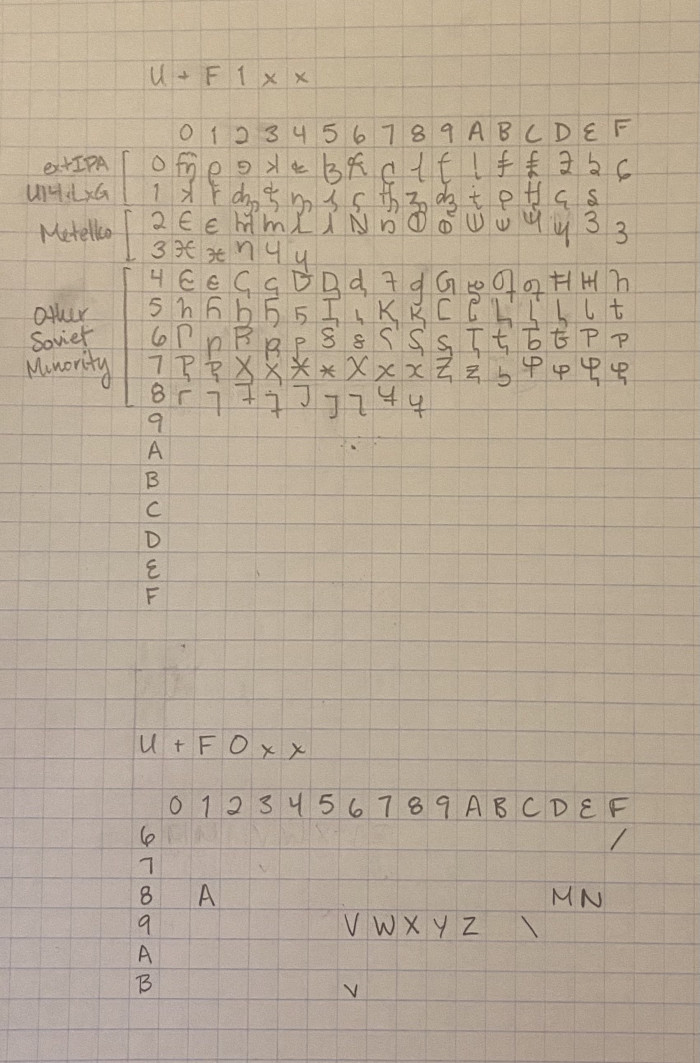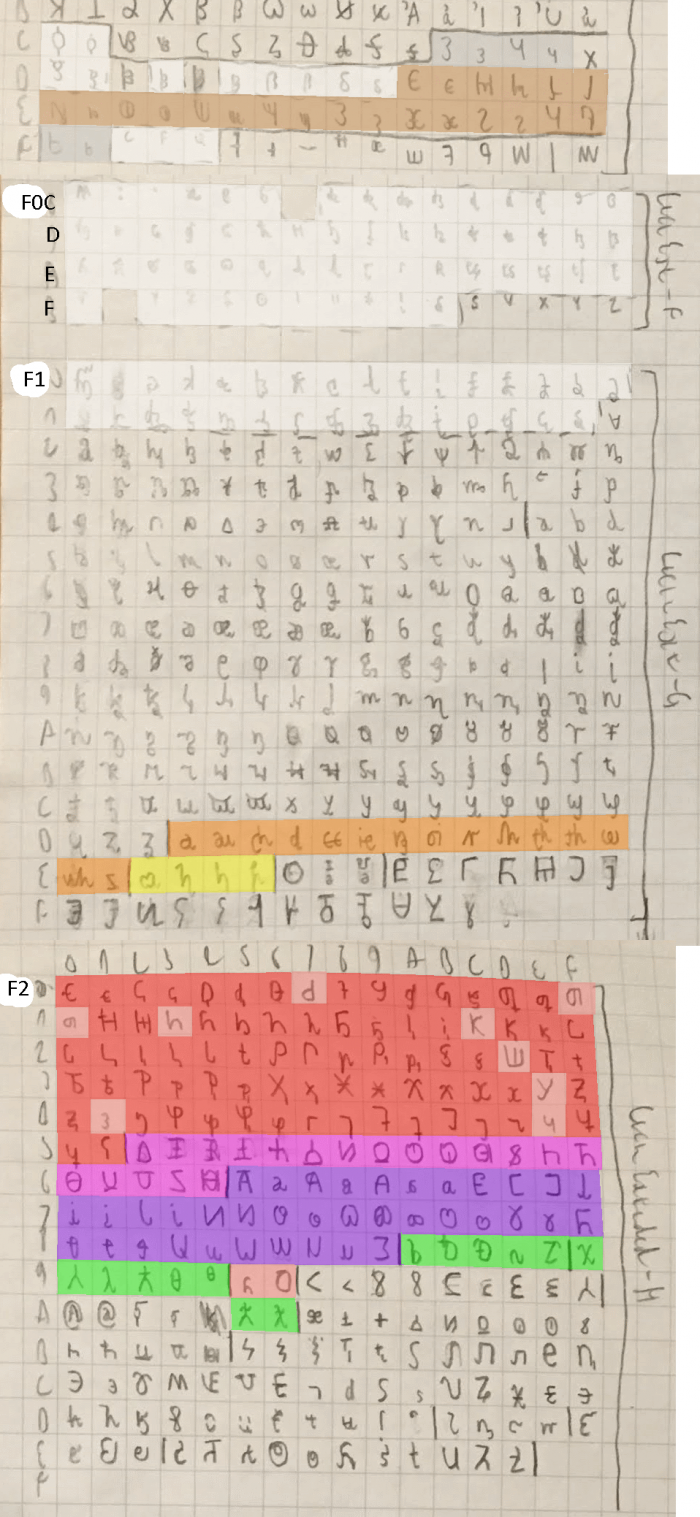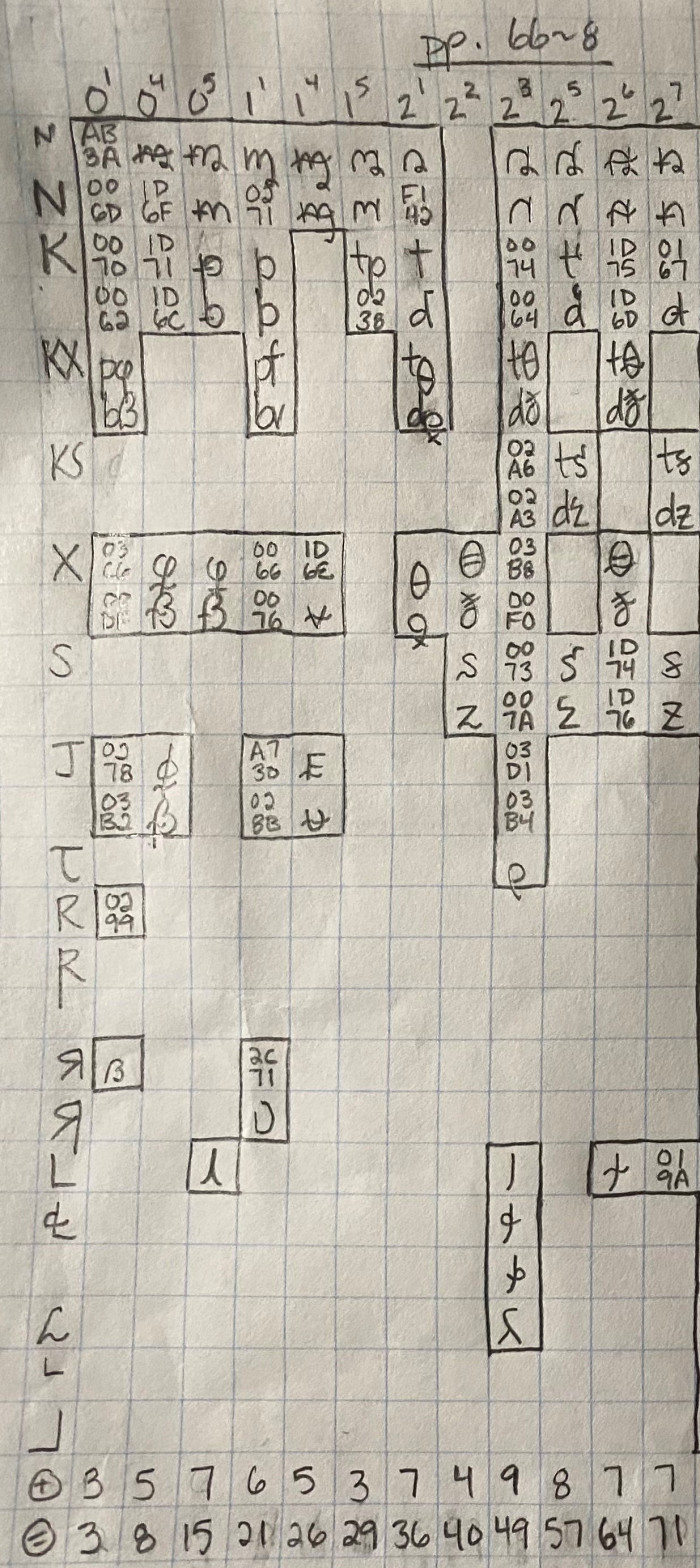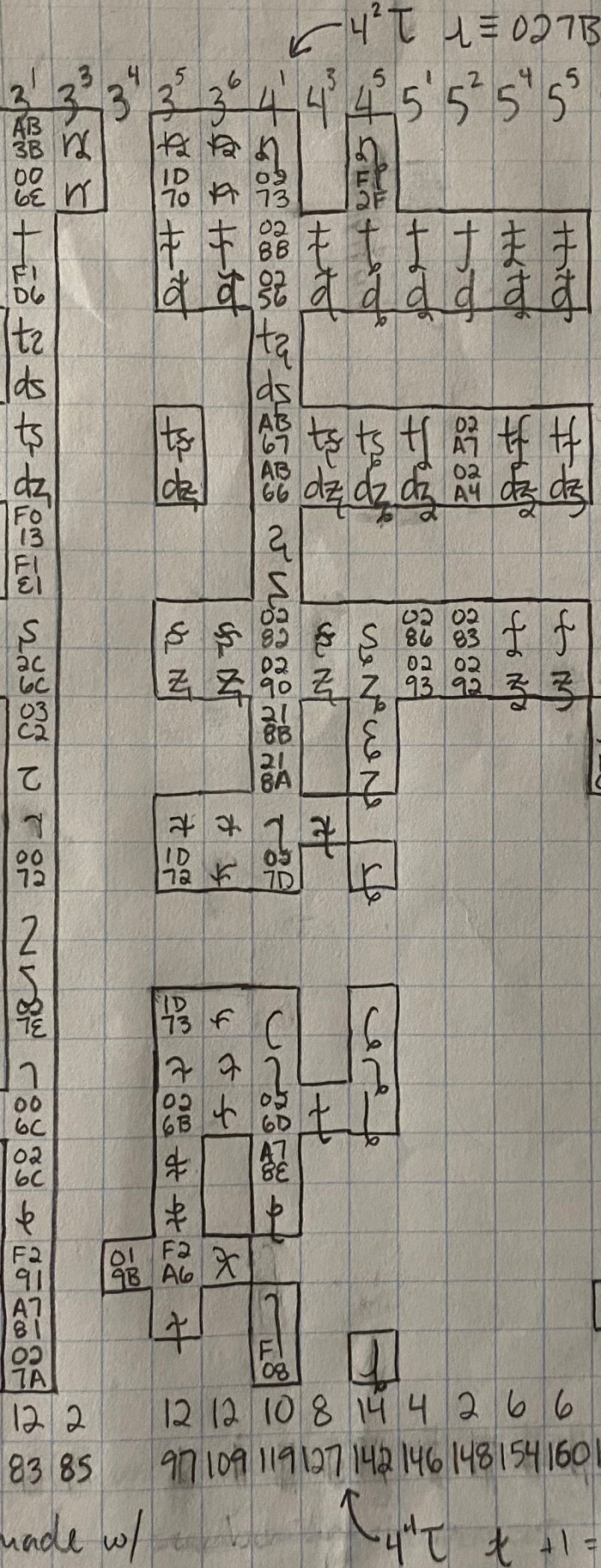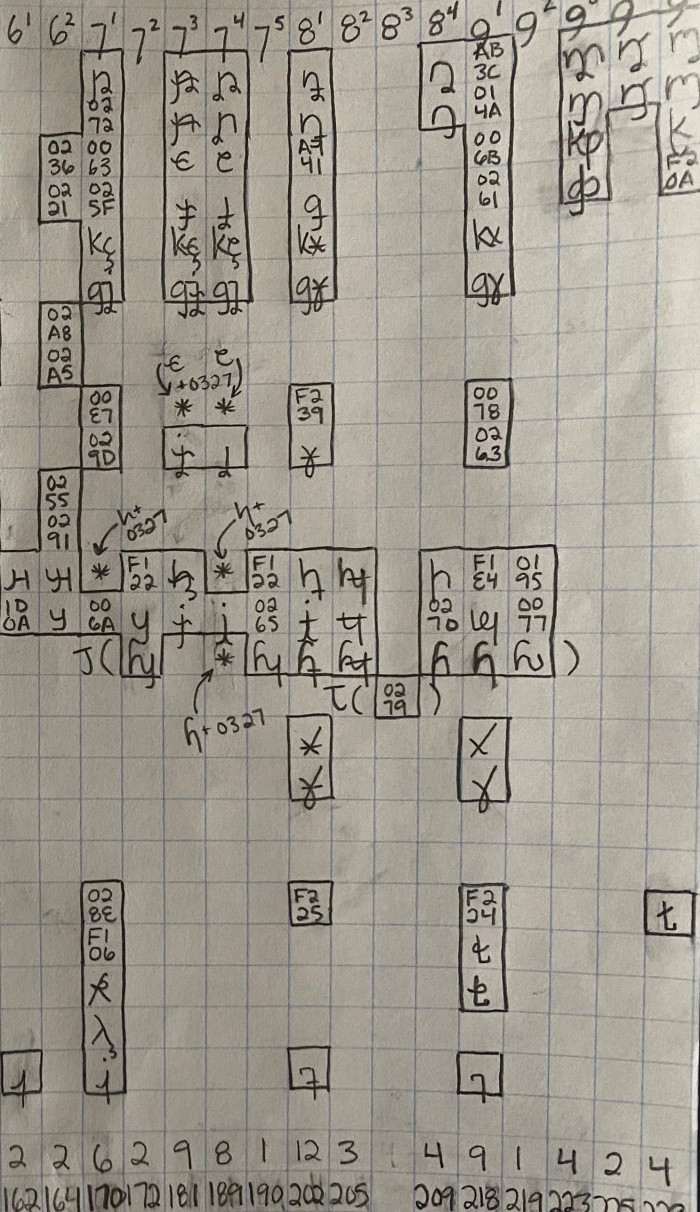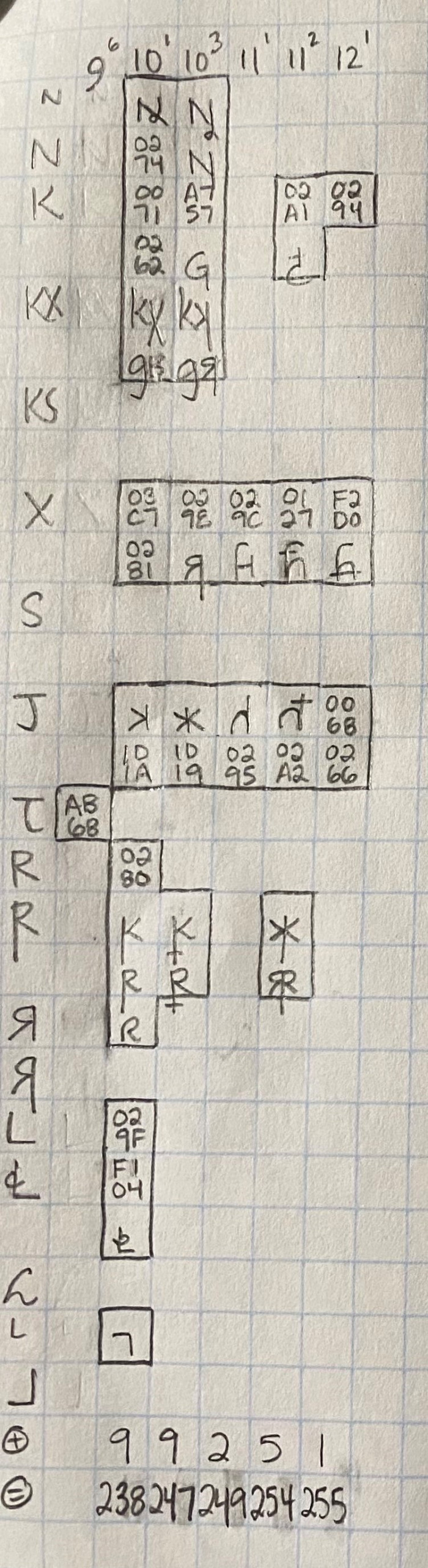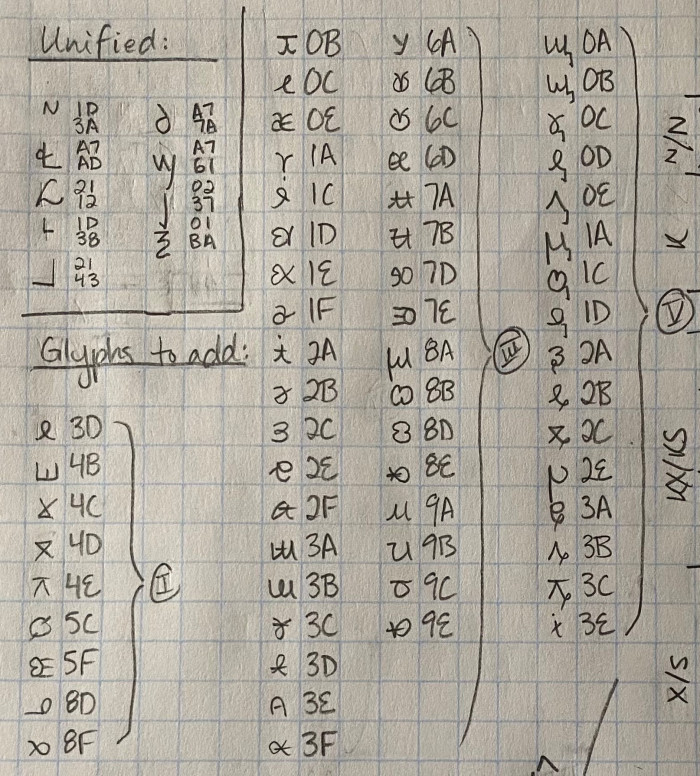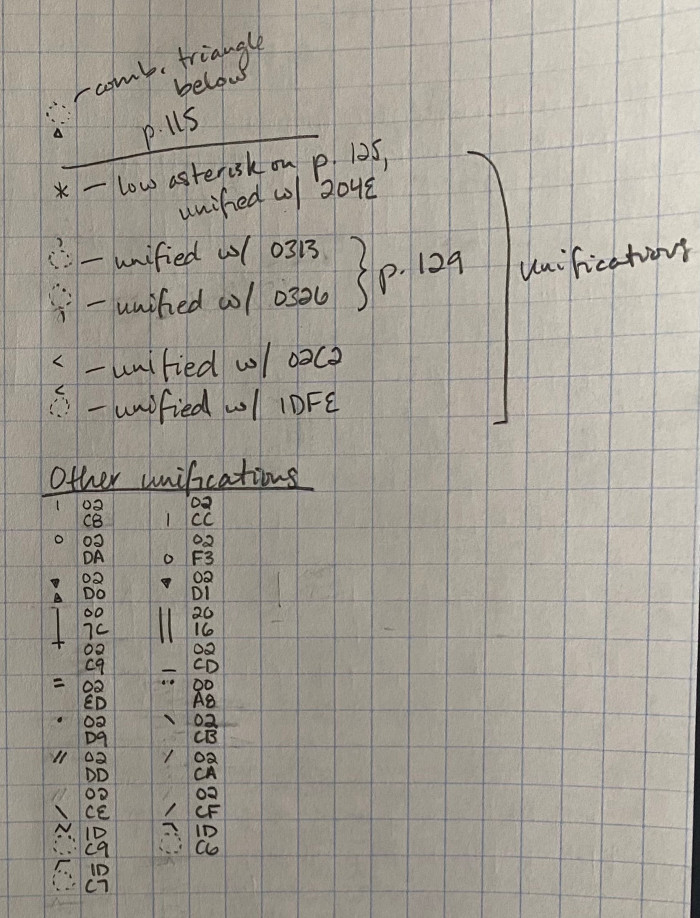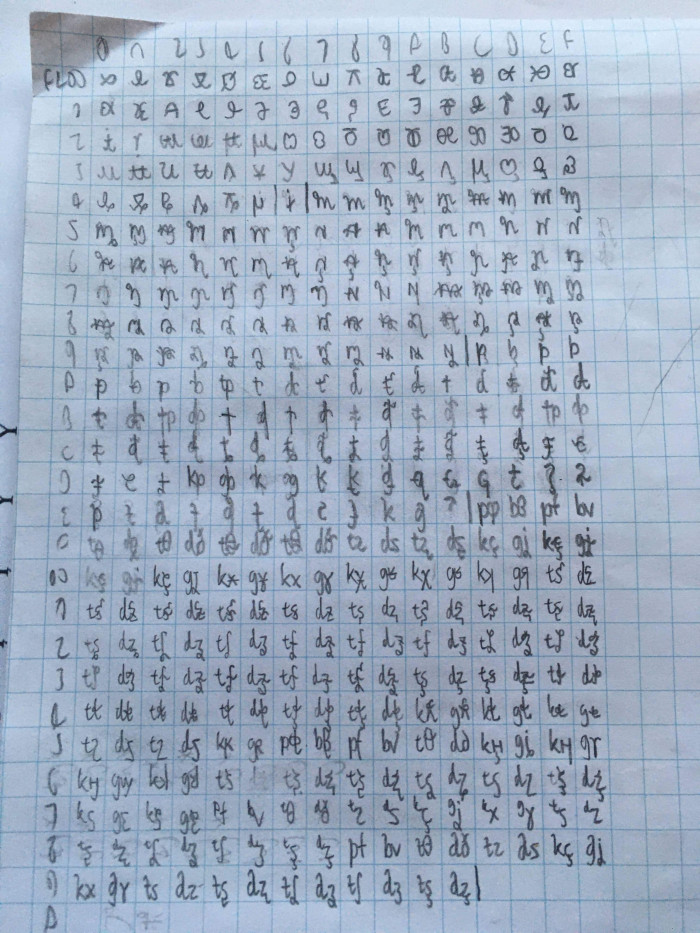
So far supports:
All blocks from U+0000 to U+036F and most of the Greek and Coptic block
Also: if anyone has any suggestions for me to put in the newly added PUA, let me know!  It doesn't have to be a formal Unicode proposal or anything, but do please tell me approximately how much space it'll take and where you'd want it in either PUA.
Klingon. It can be in the last three rows of the BMP PUA. THey can be encoded according to this CSUR standard…
(one row = 16 codepoints)
Added: some basic Cyrillic stuff, as well as modifying lowercase Greek Kappa
Current character count: 1031
@BWM, if I understand correctly, I should add Klingon to U+F8D0~U+F8FF?
Added: First half(ish) of Latin Extended Additional
Current character count: 1191
I should also probably point out that as .ttf fonts only allow for a maximum of 65,535 characters, I will only be encoding the BMP here.  Supplemental planes will be added in separate fonts.  BMP PUA proposals will still be added here, while the F and 10 planes' PUA proposals will be added in those separate fonts.
I also need to figure out what I'll be doing about the CJK characters, since they'll probably have a different width/height ratio....
Added: Klingon (in the same places as designated by CSUR) - @BMW and anyone else interested, please let me know if I made any mistakes; I'm more of a Star Wars person lol
Current character count: 1230
Added: the rest of Latin Ext. Additional
Changed: how double Latin diacritics look
CCC: 1326
Added: Latin C
Changed: a few hooks and stuff, including on eng and emg (m-hook for IPA)
CCC: 1358
Added: (almost) all remaining U13 Latin characters and a lot of punctuation
Changed: the way a few Latin letters and combining characters look
CCC: 2012
Took me way longer than I'd like to admit to draw the star.  Suprisingly hard in a 9x9 square....
I wonder how you'll do the accents that are typed after a letter, but placed before it, and two-part vowels when you get to those languages eventually, especially abugidas…
Added: the rest of the non-combining Latin and Greek letters and a lot more Cyrillic, punctuation, and symbols
Changed: a few Latin aesthetics
CCC: 3010
As for the two-part vowels and other combining character weirdness, I had a way of getting around it in the original GS Unicode (successfully?), so I'll probably do something similar here.
This looks really good so far, in both quality and quantity. I hope my browser can load the font up when you get to about 18k letters (I have 12 GB of RAM installed, my laptop can have 16GB max).
It even looks good at pixel size and double pixel size…
- Some Legend of Zelda symbols (FE804-FE83A) and SSB and FSB series symbols (FE880-FE8FF) are too complicated to draw in such a small space. I will provide images should you do these.